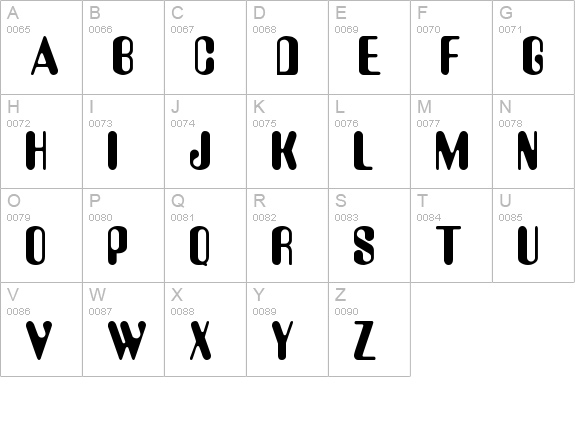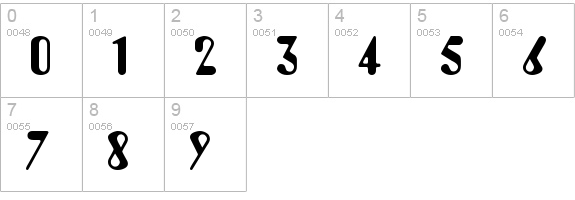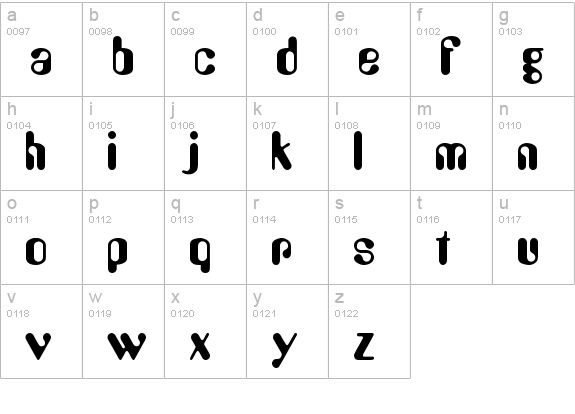
Computadora Font Details
Computadora font is a sleek and modern typeface that exudes sophistication and professionalism. Its clean lines and sharp edges make it perfect for a wide range of design projects, from branding to editorial layouts. The versatility of Computadora font allows it to be used in both digital and print applications with ease. What sets Computadora font apart is not only its timeless style but also the fact that it is available for free download at FontsMarket.com. This means that designers and creatives can access this high-quality font without any cost, making it a valuable addition to any font library. With its contemporary aesthetic and effortless legibility, Computadora font is a must-have for anyone looking to elevate their design work. Download it for free today at FontsMarket.com and see the impact it can make on your projects.